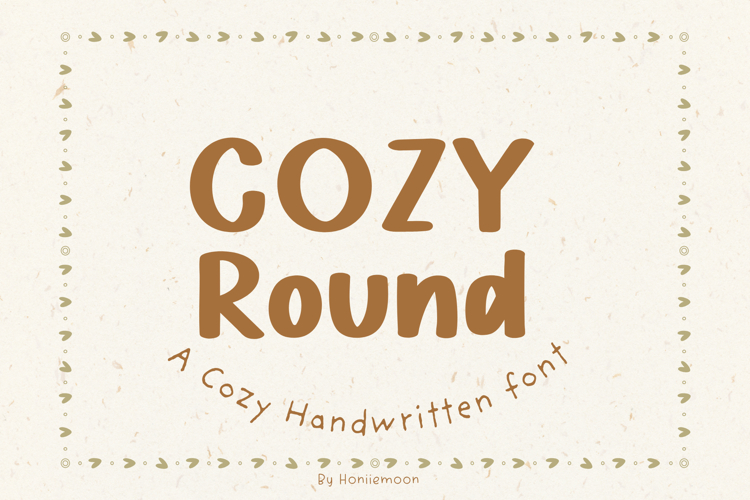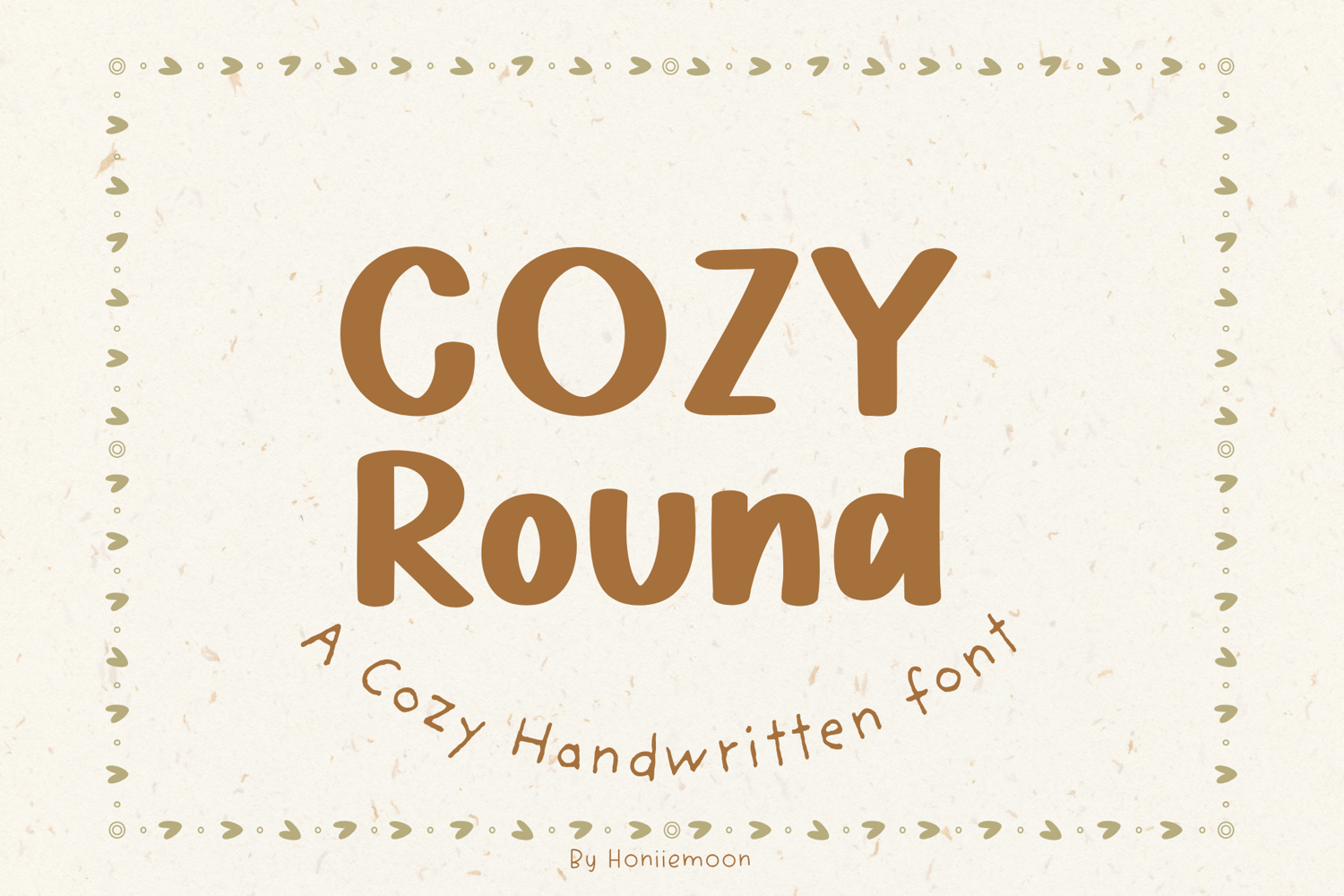
"Cozy Round" is a charming and cute handwritten font with a friendly, playful vibe. Its rounded edges and comfortable style make it perfect for a wide range of projects, from children's books and educational materials to greeting cards, invitations, T-shirt designs, and branding. The font comes with a full set of uppercase and lowercase letters, numbers, and basic punctuation. Bring a touch of warmth and comfort to your designs with Cozy Round!